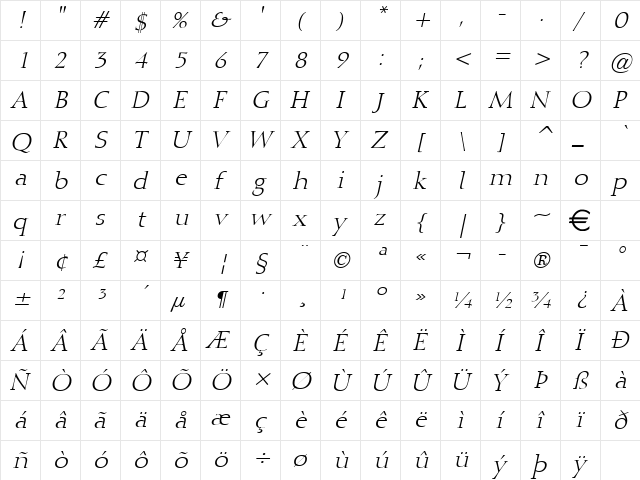
Cally721 Italic Font Preview
Cally721 Italic
Design Context for Cally721 Typeface
Cally721 is a composed and adaptable typeface that performs quietly and consistently across a wide range of design contexts. The slanted form adds forward momentum and visual energy.
Pro Tip: Try Cally721 for annotation and caption copy alongside an upright companion — the contrast in angle creates a dynamic but ordered typographic system.